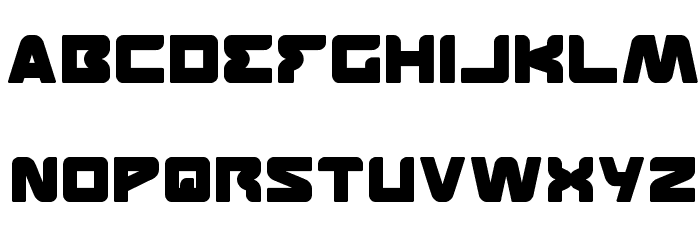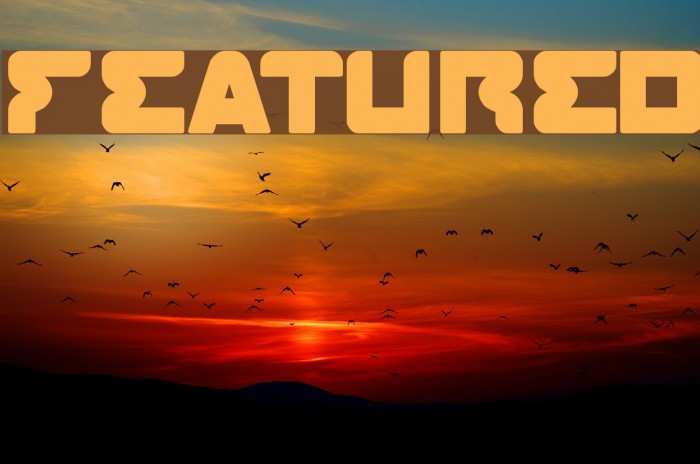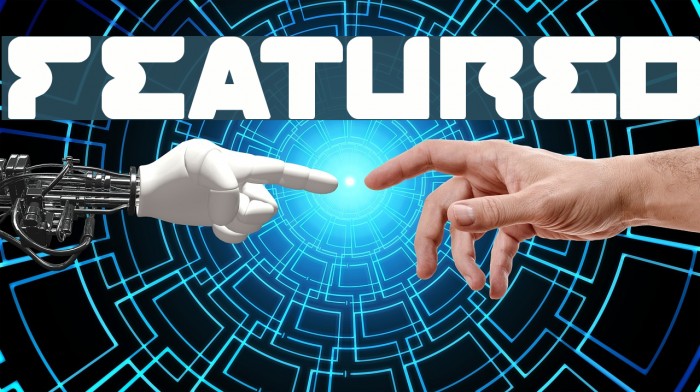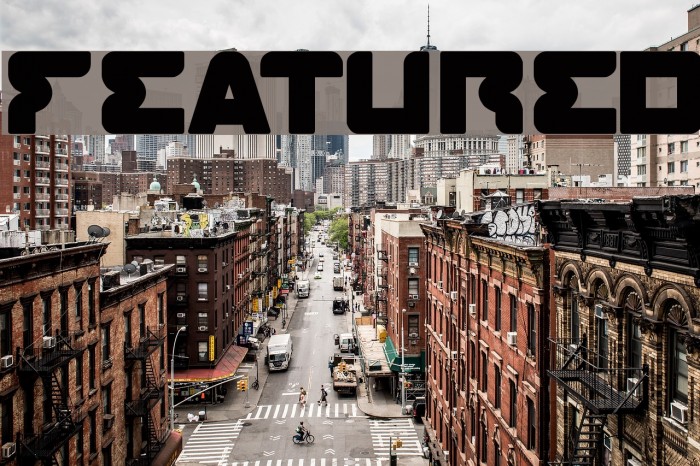
FEATURED Font
This font features a bold and geometric design with a futuristic flair. The characters are constructed with thick, block-like shapes that create a strong visual impact. Each letter is distinct, with angular cuts and unique forms that add to its modern and edgy appearance. The uppercase letters are particularly striking, with a uniform height and width that contribute to a cohesive look. The font's style is reminiscent of digital or sci-fi themes, making it ideal for projects that require a bold and contemporary aesthetic.
A bold, geometric font with a futuristic and edgy design.
- Proposed Projects: Ideal for sci-fi themed posters, video game titles, technology branding, and modern digital interfaces.